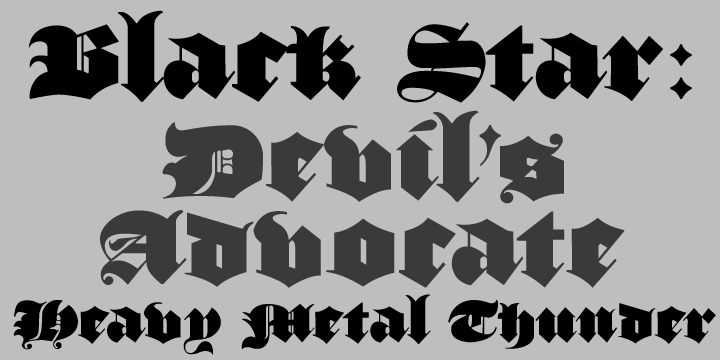
• Devil's Advocate™
Devil’s Advocate is a digital version of the typeface Cathedral Text found in the 1934 American Specimen Book of Type Styles by the American Type Founders Company. It is a very black, heavy blackletter typeface.
What was the inspiration for designing the font? I found specimen pages for Cathedral Text, an old blackletter typeface, in the 1934 American Specimen Book of Type Styles by the American Type Founders Company.
What are its main characteristics and features? Devil’s Advocate is a super-heavy blackletter with alternately chiseled and curvaceous characteristics. More…
Usage recommendations: Display type! Perfect for evoking heavy metal/hardcore sentiments. Heavy, heavy heavy. Use accordingly!